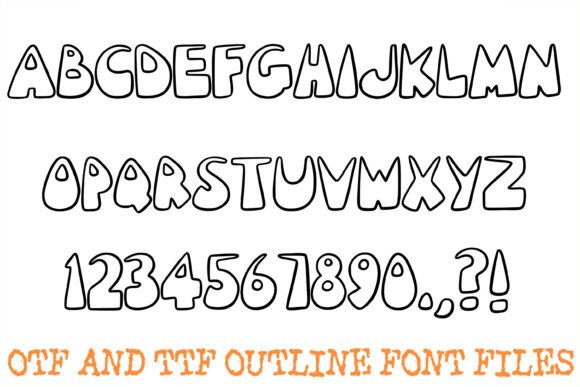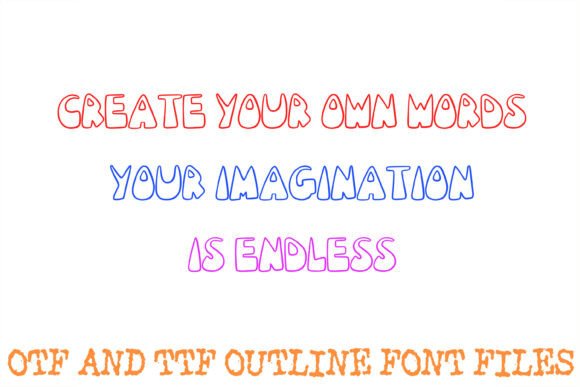
Introduction to Chunky Vintage Font Font
Fonts play a crucial role in design, and the Chunky Vintage Font font is a typeface that brings both character and versatility to any project. Whether you’re working on a branding project, a website, or a print design, the Chunky Vintage Font font offers a unique style that can elevate your work.
The Chunky Vintage Font is a bold and friendly display lettering set that features thick, rounded silhouettes and unique “teardrop” or “melting” inner counters.
This design balances a heavy, high-impact weight with a soft, organic feel, making it an ideal choice for retro-inspired branding, children’s apparel, playful stickers, and modern nursery decor The hand-drawn, “puffy” construction gives each character a sense of warmth and approachability.
Key Features of Chunky Vintage Font Font
Why Choose Chunky Vintage Font Font?
The Chunky Vintage Font font is more than just a typeface – it’s a design tool that helps you communicate your message with style and clarity. Its unique character set and versatile design make it suitable for a wide range of applications, from elegant invitations to bold headlines.
With its carefully crafted letterforms and balanced proportions, the Chunky Vintage Font font ensures readability and visual appeal across all mediums.
What makes Chunky Vintage Font font special?
The Chunky Vintage Font font stands out with its unique design, exceptional readability, and versatility across various design applications.